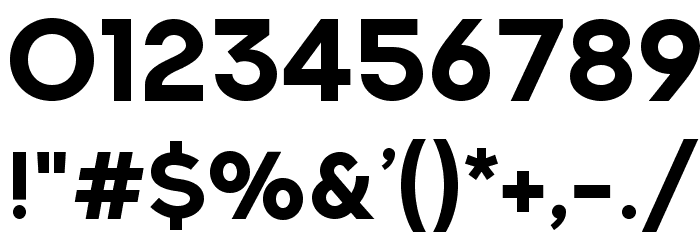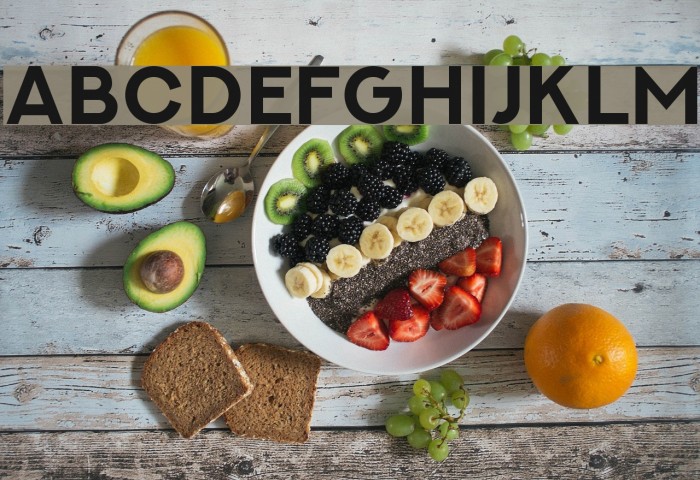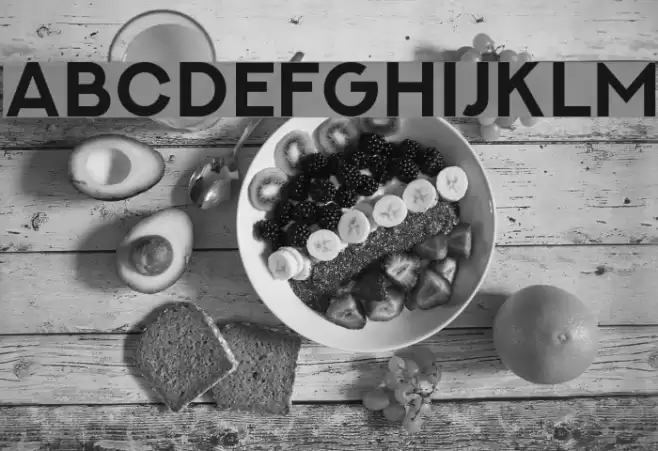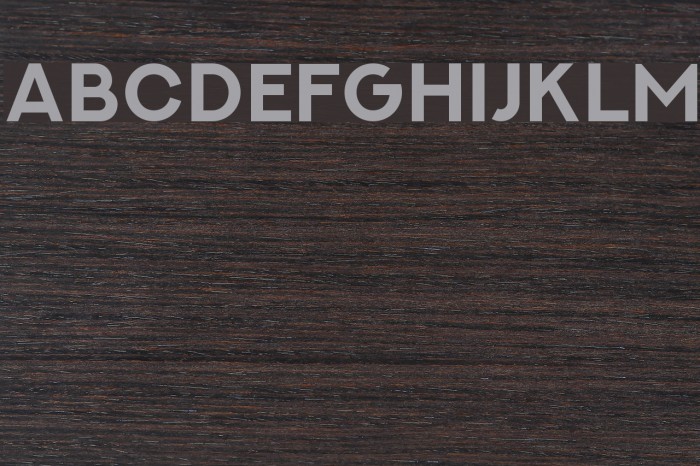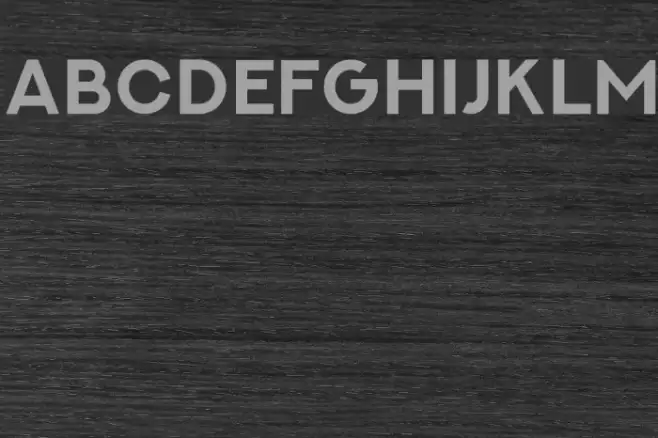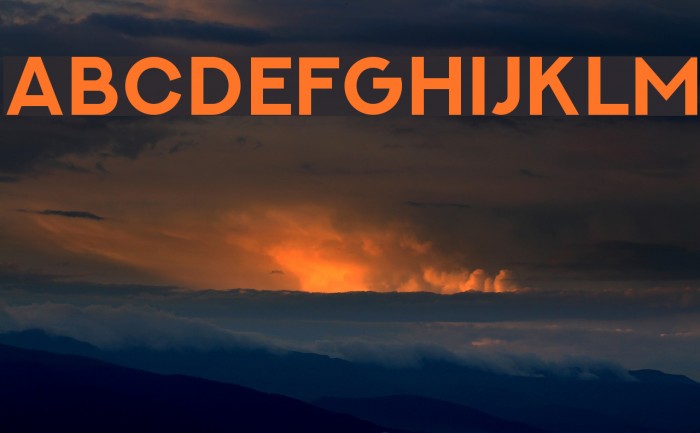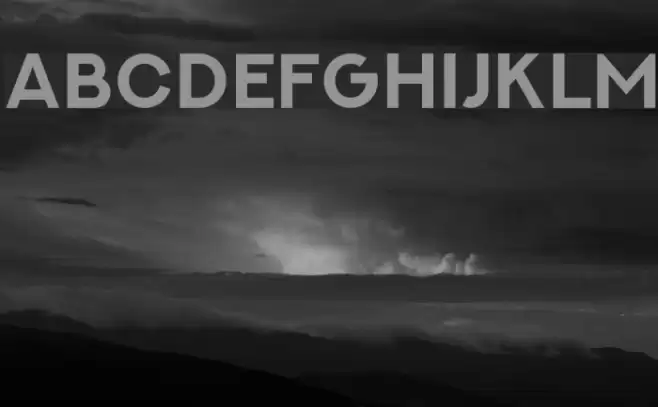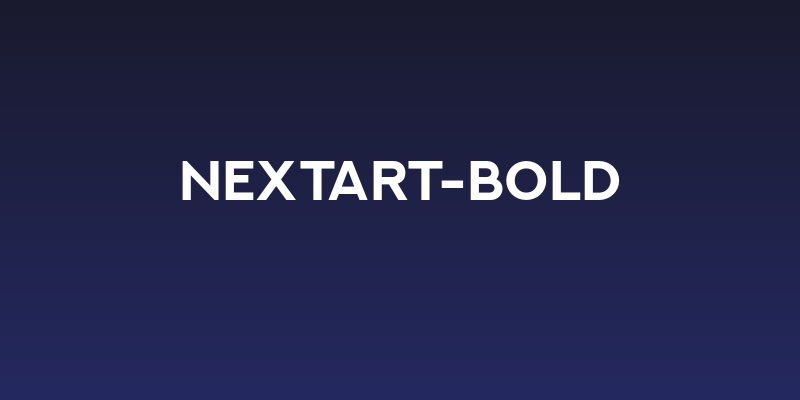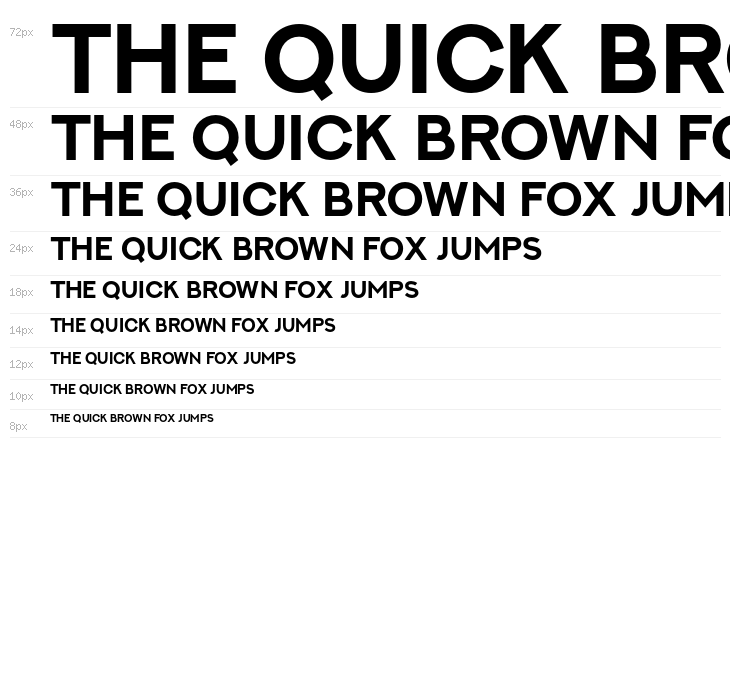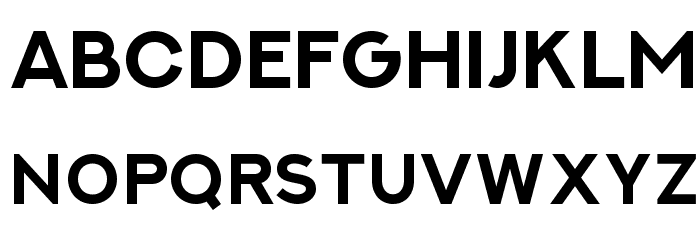
NEXTART-Bold Font
NEXTART-Bold Description
This font features a bold and modern sans-serif style with clean, geometric lines. The characters are uniform in width, offering a balanced and structured appearance. The uppercase and lowercase letters maintain a consistent height, contributing to a cohesive look. The numerals are clear and easily distinguishable, making them suitable for various applications. Special characters are well-defined, enhancing the font's versatility. This font's boldness and clarity make it ideal for impactful designs.
| Proposed Projects | Ideal for branding, advertising, headlines, posters, and digital media where a strong, modern presence is desired. |